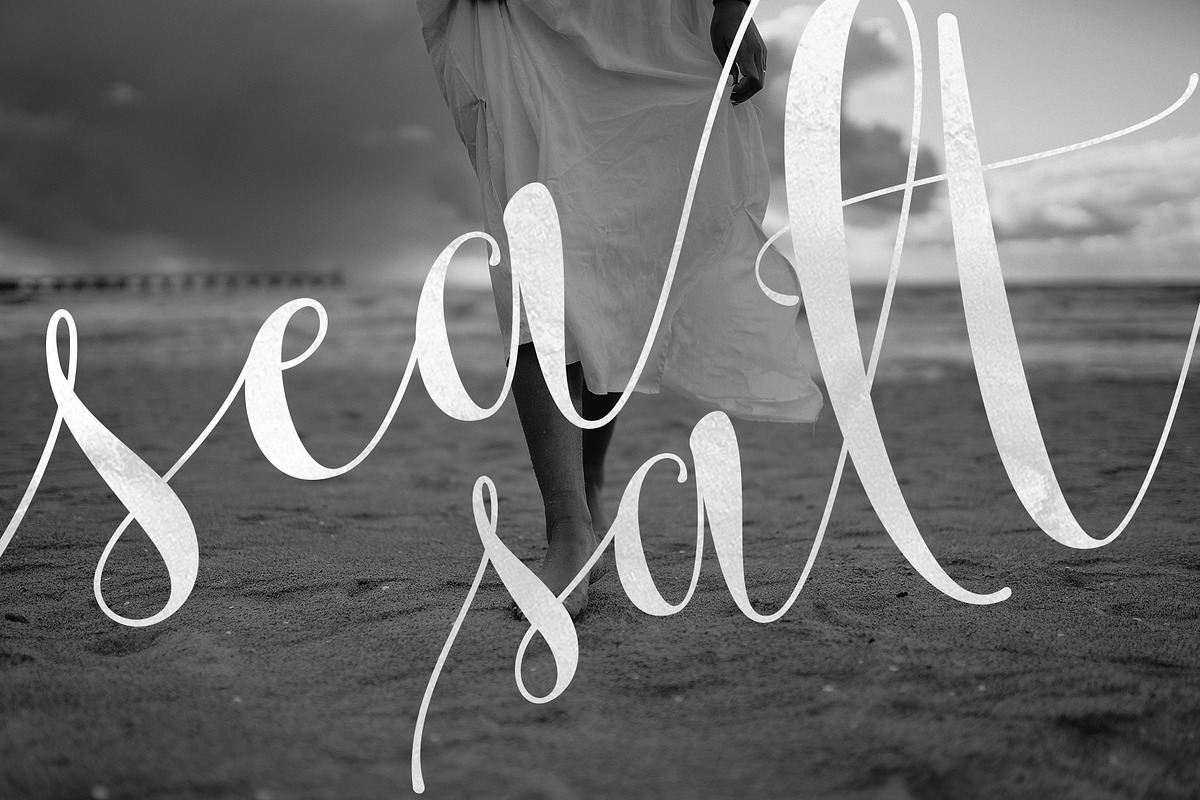
Lemonsalt Sweet Script
Introducing Lemonsalt Sweet Script
This is a handwritten font made with care and sweetness. With upright calligraphy text form and dancing as well as some additional alternate characters will make it more interesting. You have to try it !
With a style like this, this font will be suitable in use for logo's, branding projects, homeware designs, product packaging, mugs, quotes, posters, shopping bags, logo's, t-shirts, book covers, name card, invitation cards, greeting cards, and all your other lovely projects.